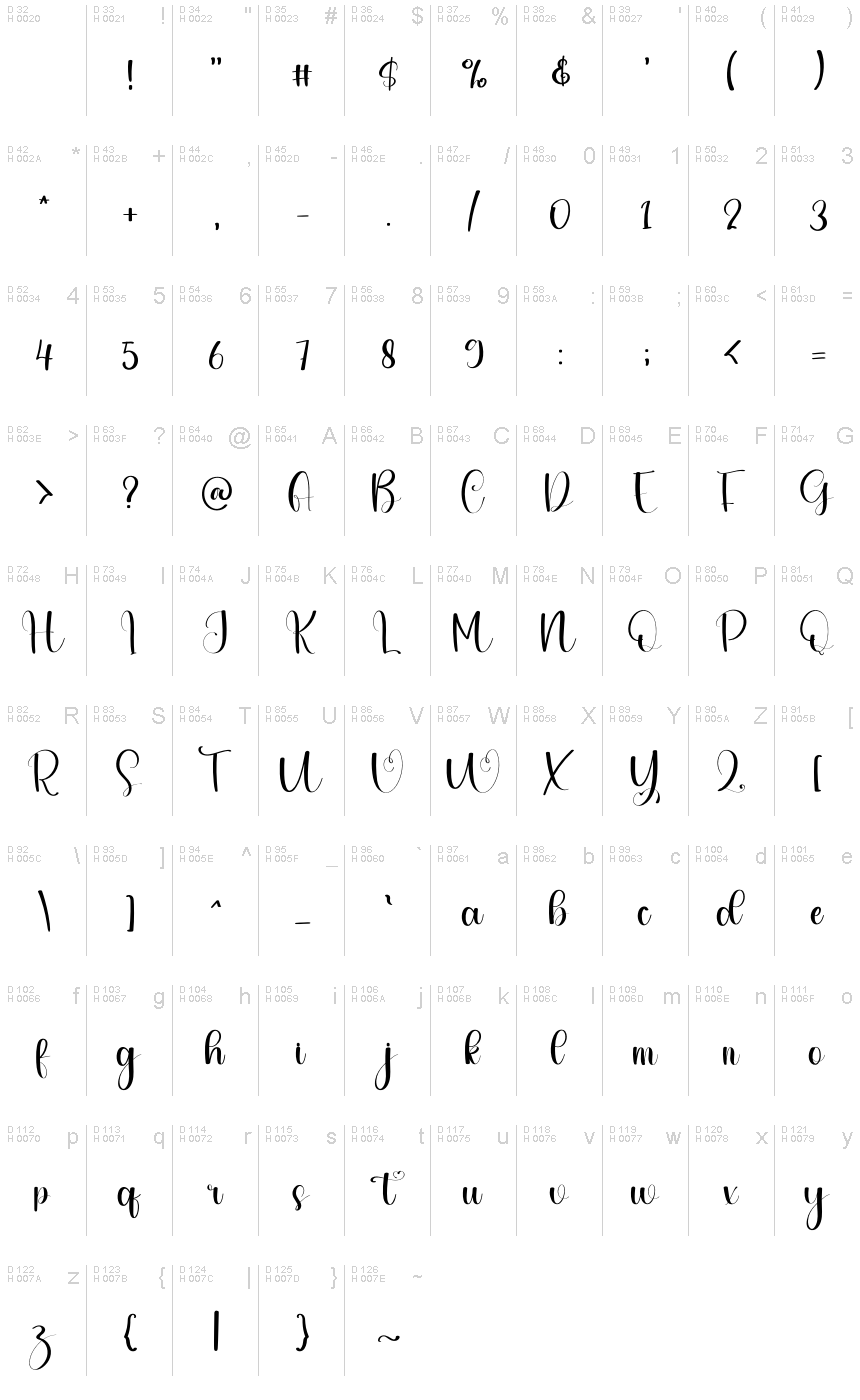
Barbie
Barbie, crafted by PiPi Creative, embodies the elegance and fluidity of calligraphy in its design. With its sweeping curves and fine lines, this font exudes a sense of sophistication and grace. The delicate swashes suggest a playful yet refined aesthetic, ideal for projects that require a touch of femininity and charm.
The font's versatility shines in contexts like wedding invitations, branding for beauty products, or upscale event signage where its artistic strokes can add a personal and high-end feel to the visual composition. Its legibility despite the ornate details ensures that Barbie maintains both beauty and functionality in various applications.